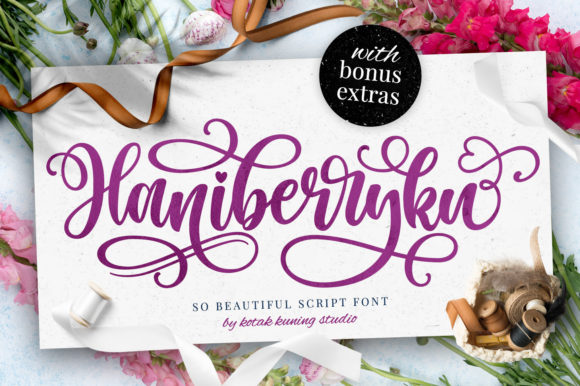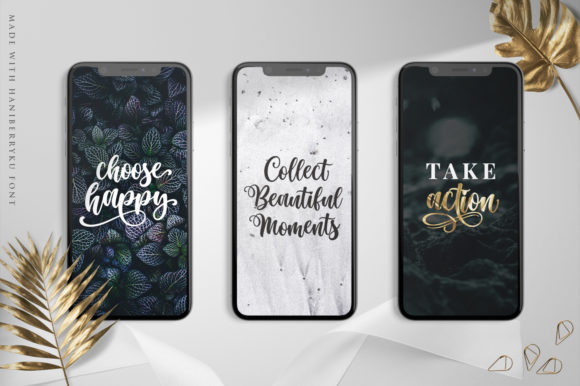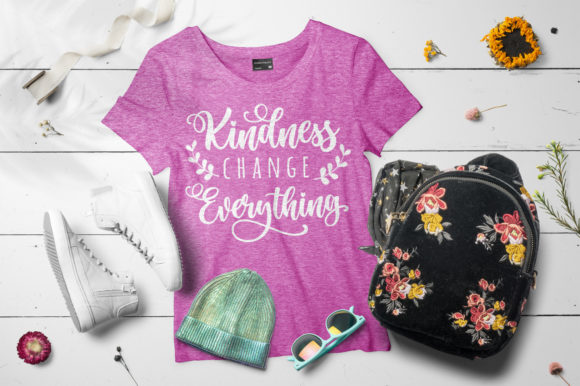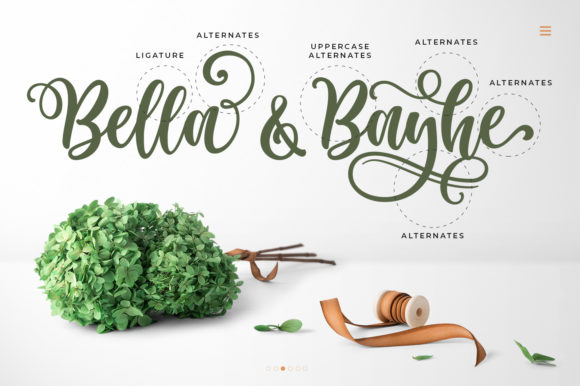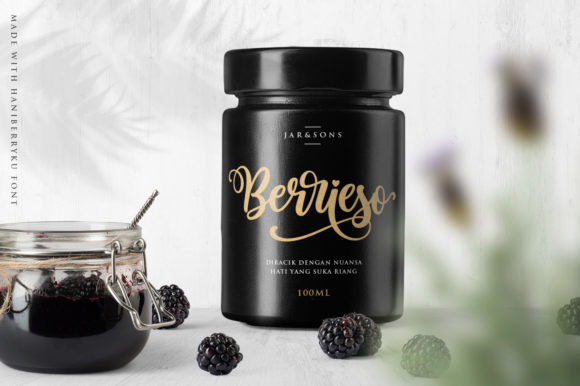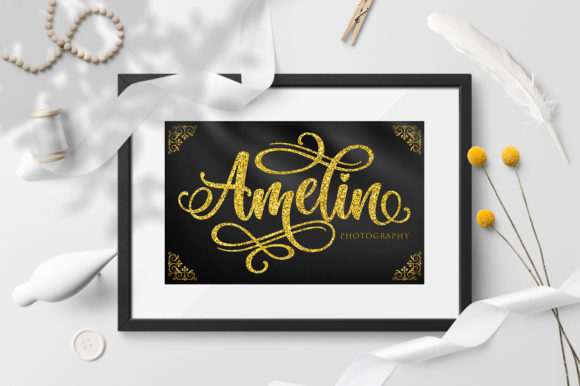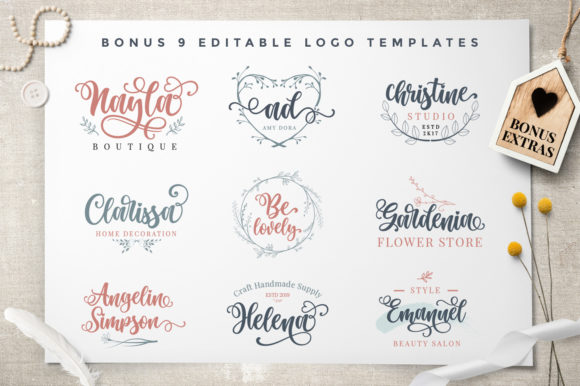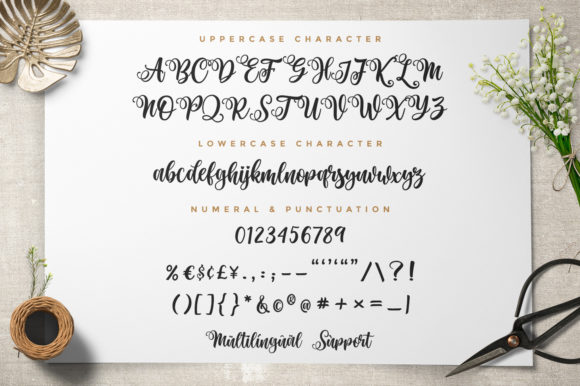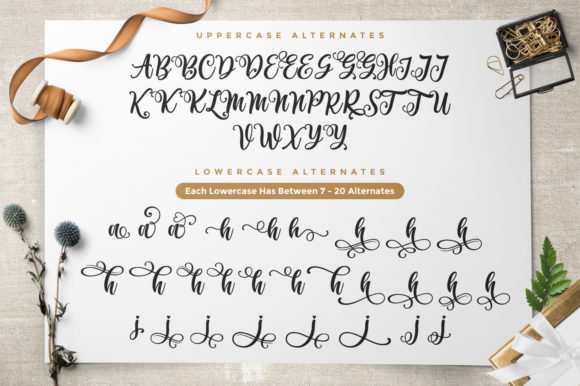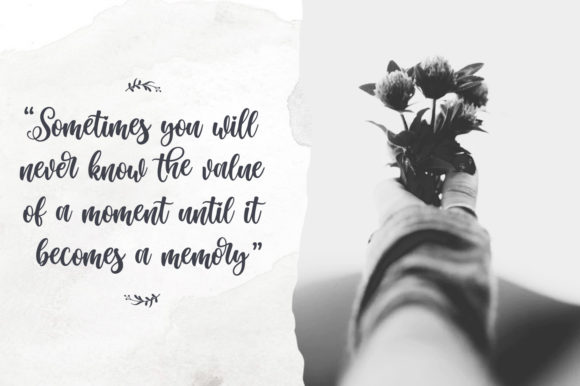
Haniberryku Font
Haniberryku is a beautiful script font with a natural and stylish flow. It’s perfect for creating stunning designs and for adding a romantic touch to your projects!